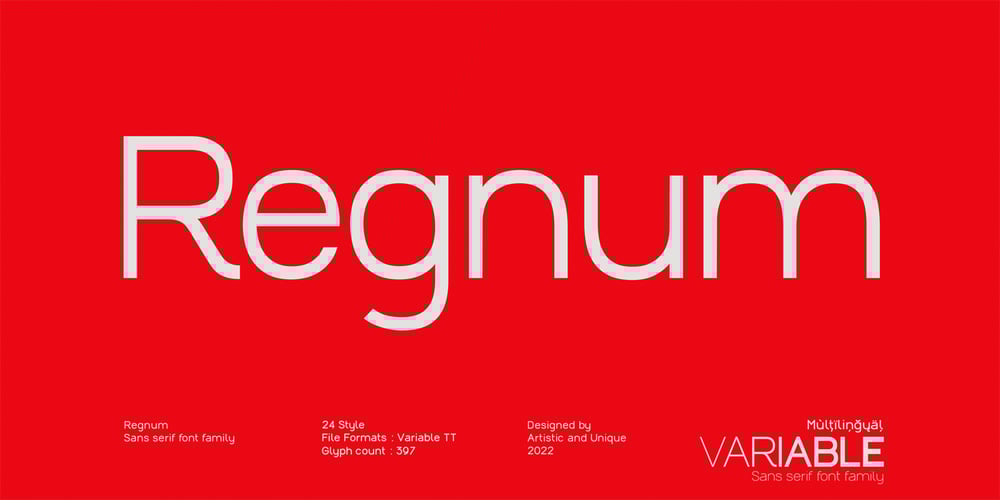
Regnum Font Family was designed by Osman Taner Kucukgenc and published by Artisticandunique. Regnum contains 24 styles and family package options. Regnum – Sans serif font family – Multilingual – 24 StyleRegnum font family has variable font flexibility, and offers better performance. It has a timeless structure where you can create your modern-elegant or classic design alternatives.Regnum a modern variable Sans serif font family. You will be more free and increase your creativity with the variations you can create in your designs. You can enrich your designs with the combination of strong Black style and Thin style.Its dynamic nature is great for book and magazines, editorial, headlines, websites, logos, branding, advertising and more.This font family can meet your needs in all creative projects, modern and classic.With this font you can create your unique designs.If you have a question, please contact me.Have a good time.